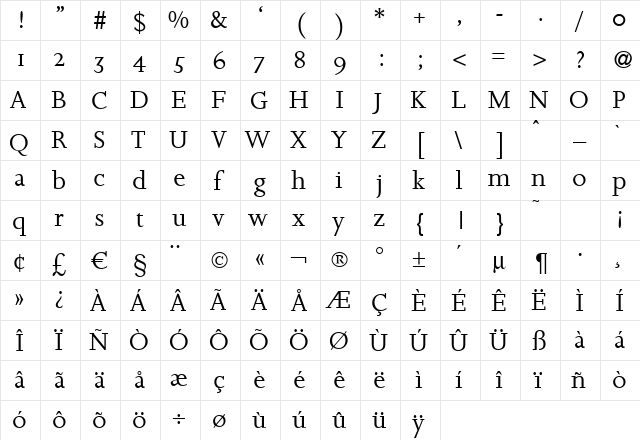
Josie-Light Regular Font Preview
Josie-Light Regular
Design Context for Josie-Light Typeface
Josie-Light is a composed and adaptable typeface that performs quietly and consistently across a wide range of design contexts. Its slender proportions lend an understated elegance to any composition.